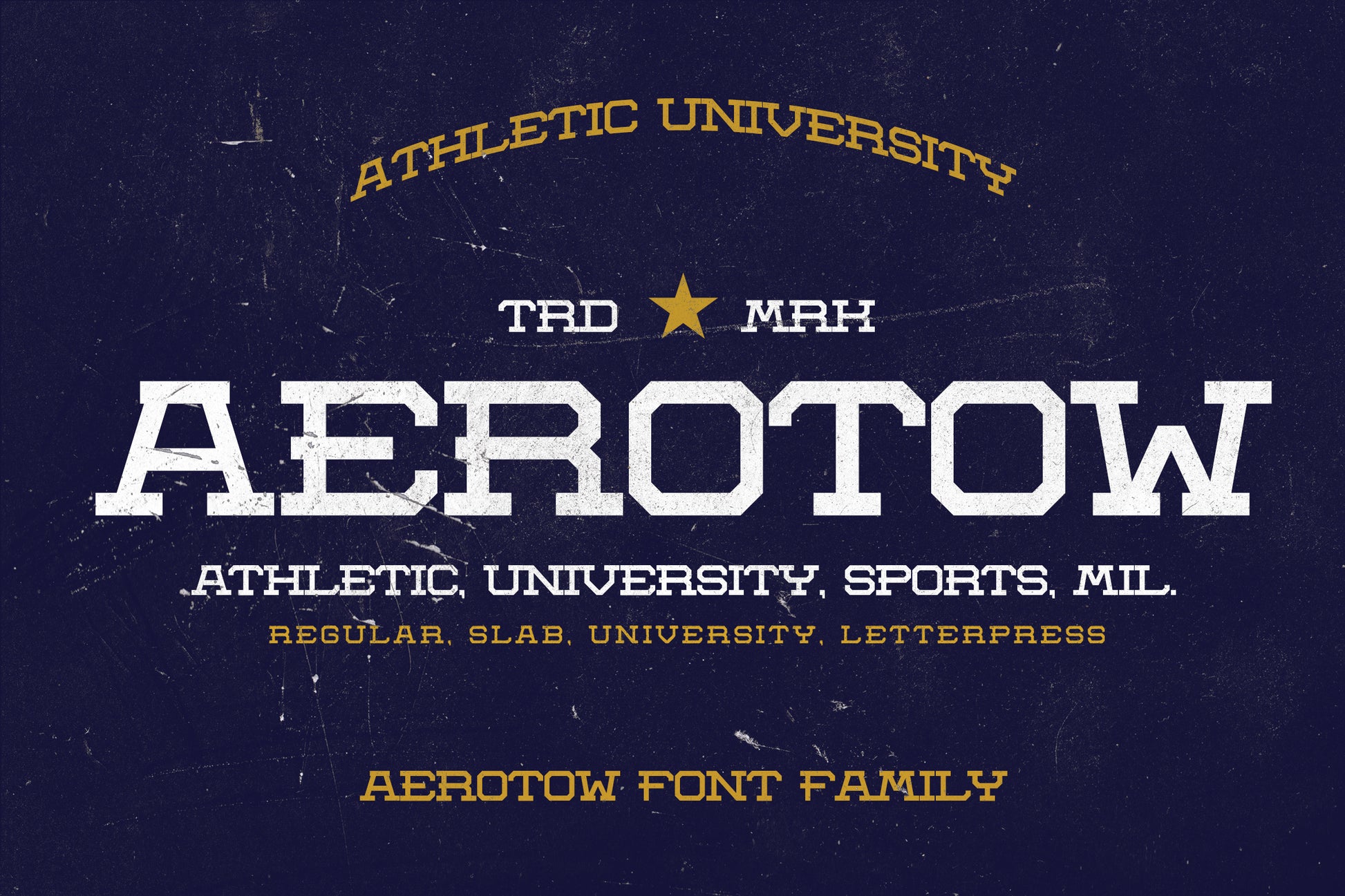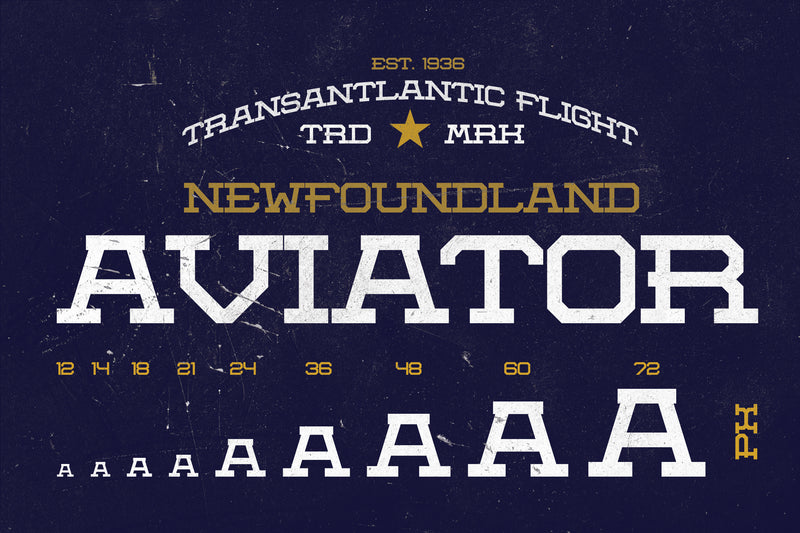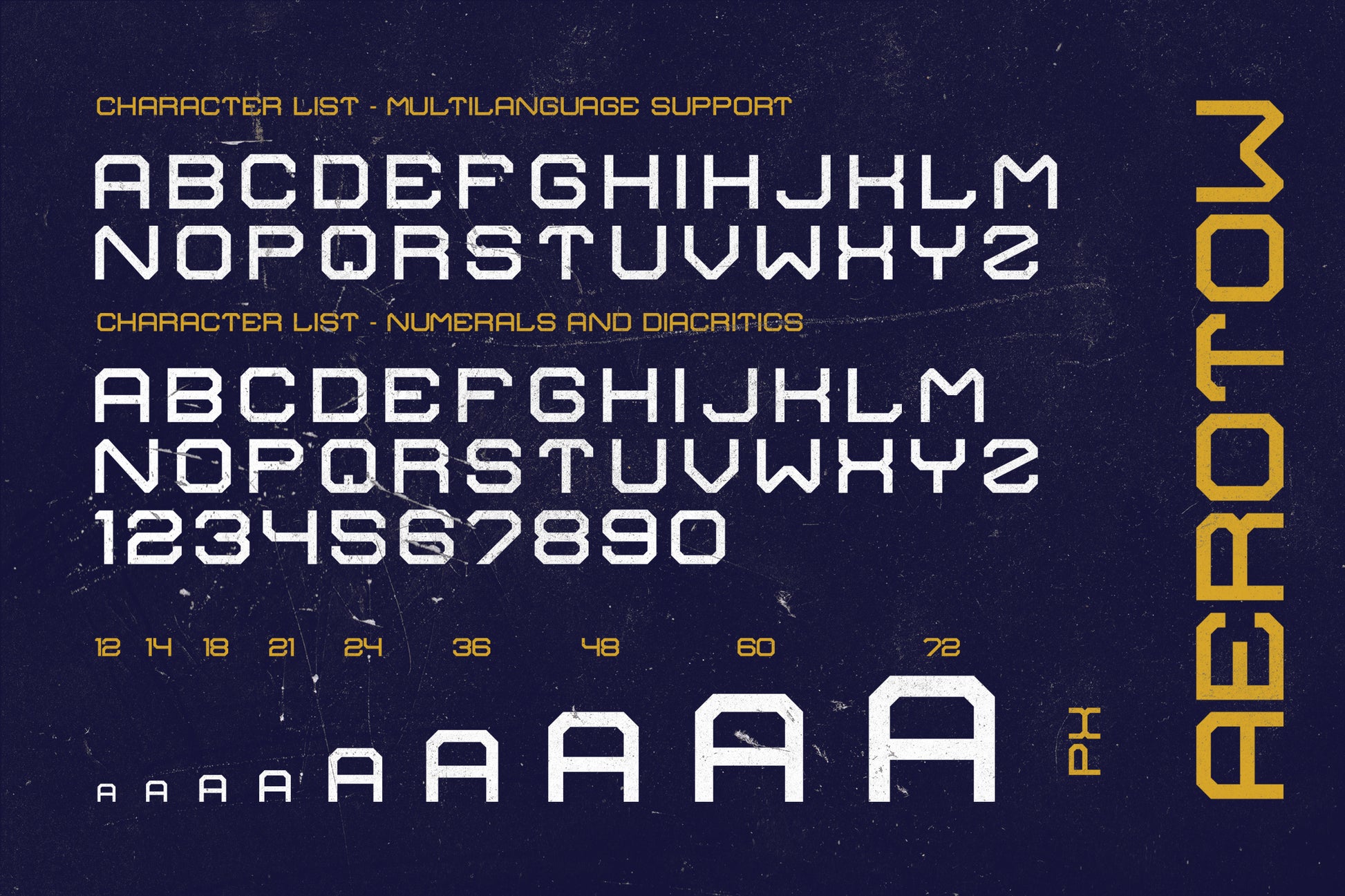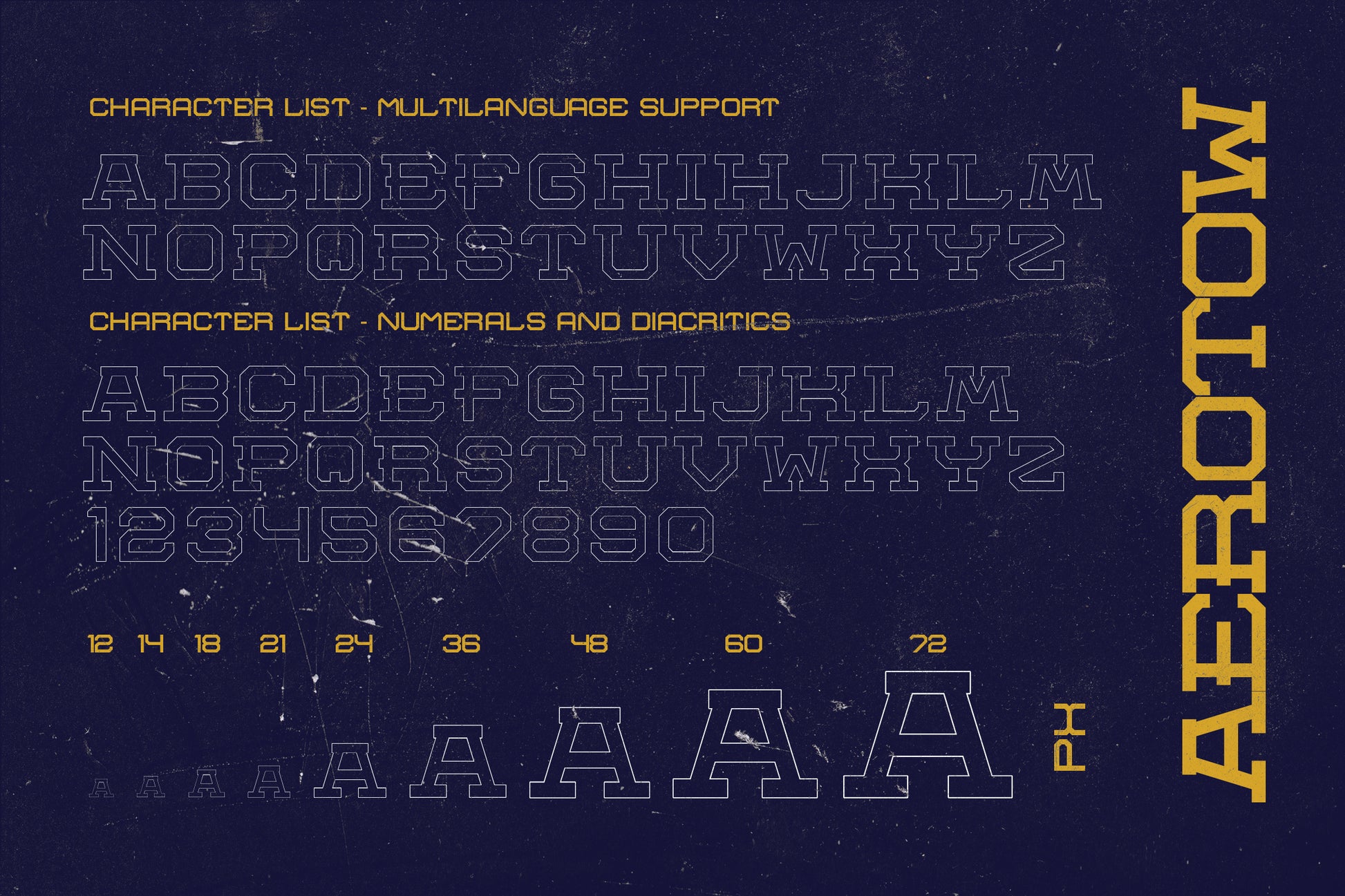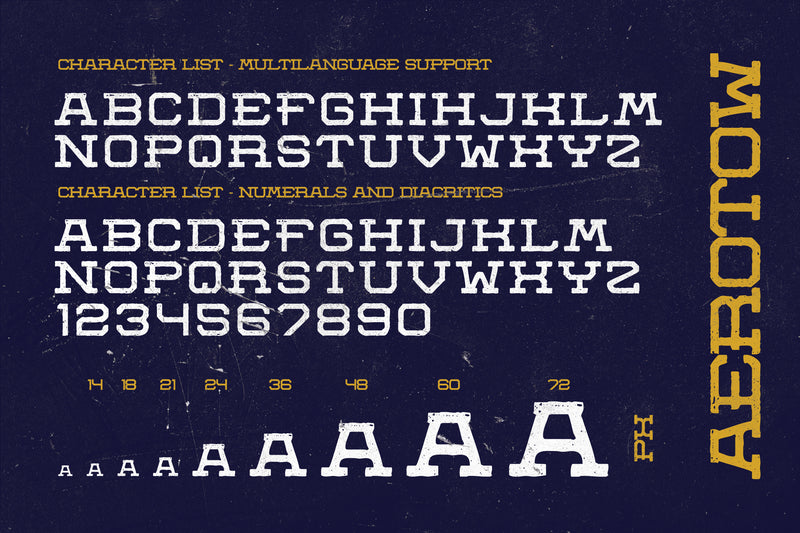
Aerotow Font
Aerotow Font is a handcrafted blend of vintage aesthetics, combining elements of letterpress and slab serif styles. This font is steeped in the nostalgic spirit of university athletics, retro posters, and the vibrant print culture spanning from the 1970s to the 1990s.
Available Styles:
Aerotow offers a diverse range of eight styles including Regular, Italic, and a unique Letterpress variation among others, making it a versatile choice for various design needs.
Usage:
With its memorable appearance, Aerotow Font excels in display settings such as headings, banners, and signage, but is equally effective for print media, user interfaces, and web design. Its well-crafted design ensures readability and impact on both large displays and smaller, detailed interfaces.
Key Features:
- Stylistic Alternatives
- Ligatures
- Extensive range of International Characters (Multilingual)
- Comprehensive Punctuation & Symbols
- Advanced OpenType Features
- Uppercase Letters
- Multilanguage Support, including but not limited to English, French, German, Italian, Spanish, and Scandinavian languages, among others.
Whether you're creating something for digital media or print, Aerotow Font offers a suite of characters to enhance any project with its unique flair and vintage charm.